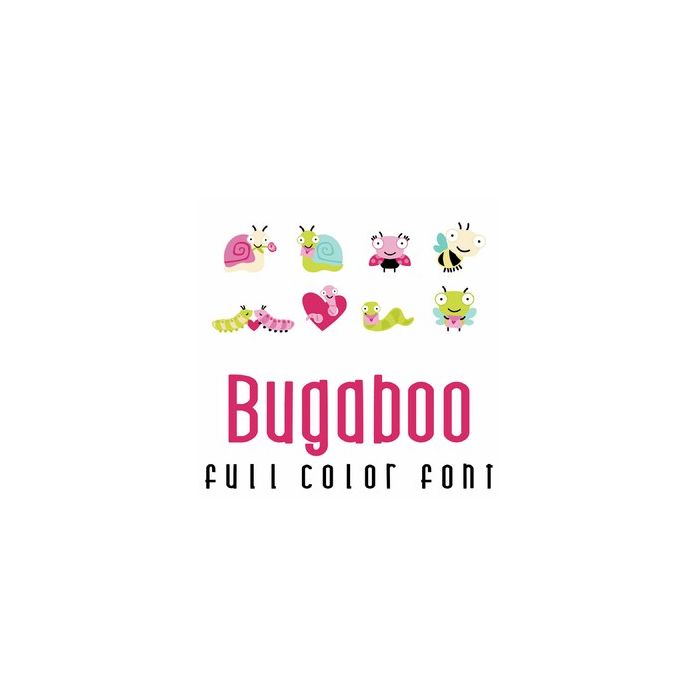
This fun full-color doodlebat font features 26 adorable insects ready for love perfect for cards, crafts, gifts, scrapbook pages, planner stickers, and more!